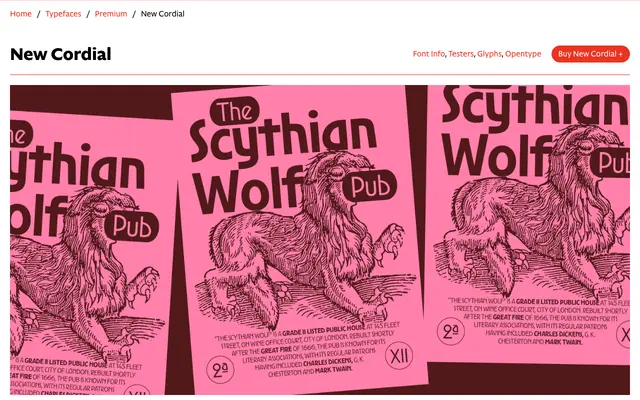
New Cordial
CAST · Riccardo Olocco · 2026
A redesign and expansion of Riccardo Olocco's 2008 all-caps display face Cordial, now with a full lowercase, five weights and an inline bold, informed by the convergence of Italian Stile Liberty and early European Modernism.
Originally designed for Veer and unavailable since 2012, the typeface has been substantially reworked: the capitals are refined, a complete lowercase introduced and diacritic coverage extended across European languages. Distinctive details include a curved stem on A, egg-shaped round letters with a low centre of gravity, a narrow S and slightly slanted second stems on h, n, a and m. Alternate forms for a, g, u and y offer more conventional or more characterful options, and an inline Bold variant adds a decorative register suited to poster and titling work.
A geometric display face with organic, sinuous detail rooted in Italian Art Nouveau ('Stile Liberty') and early Modernist influences, placing it firmly in the display category rather than a structural text classification.